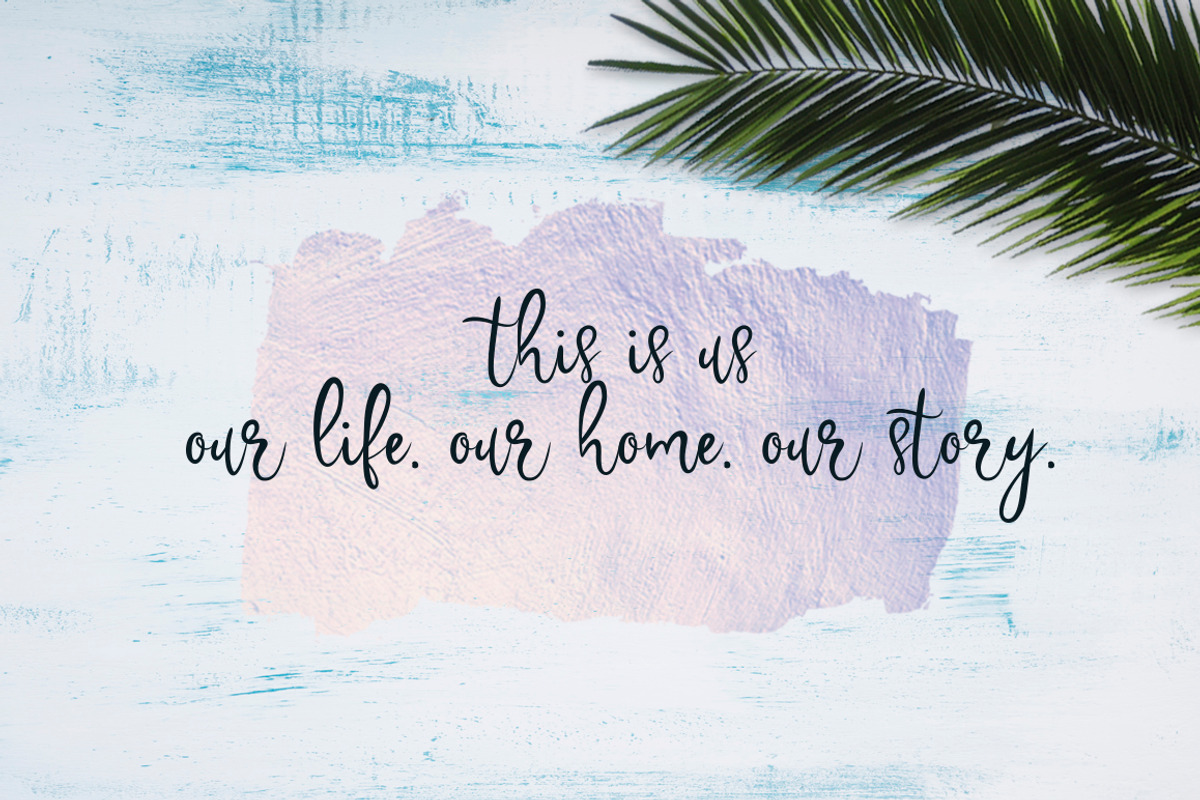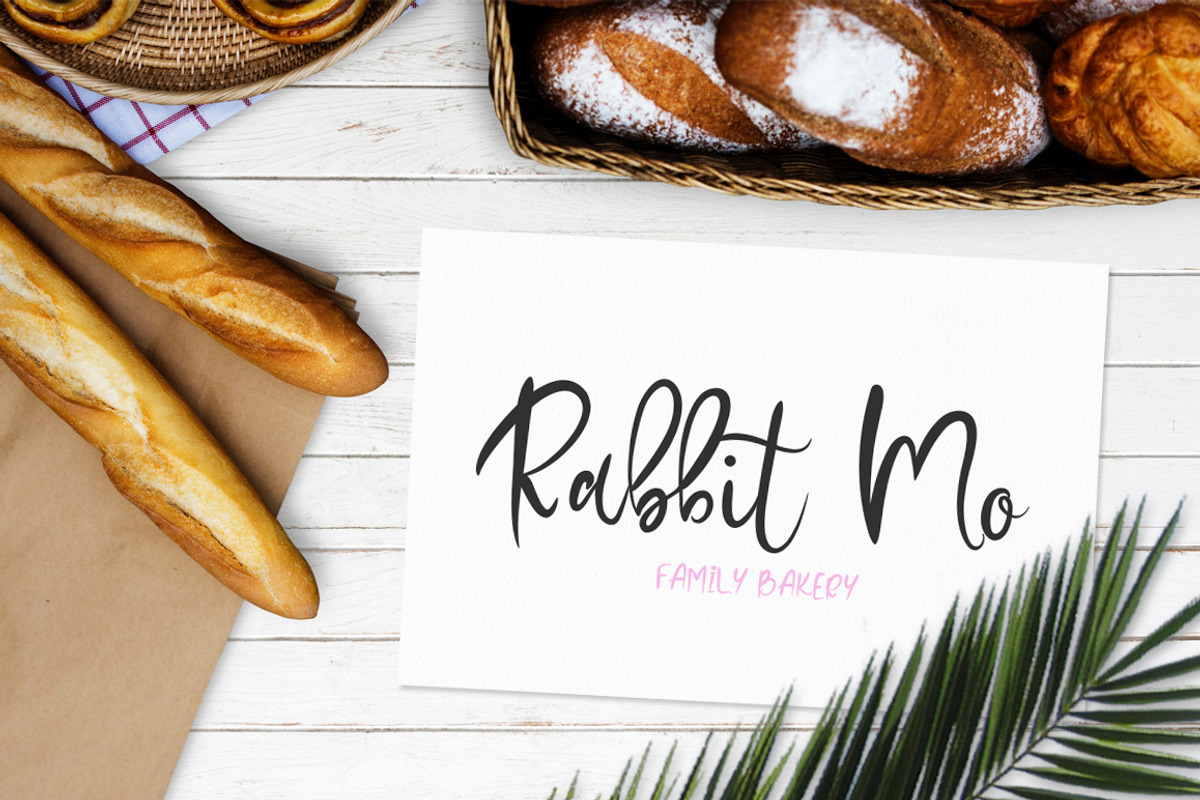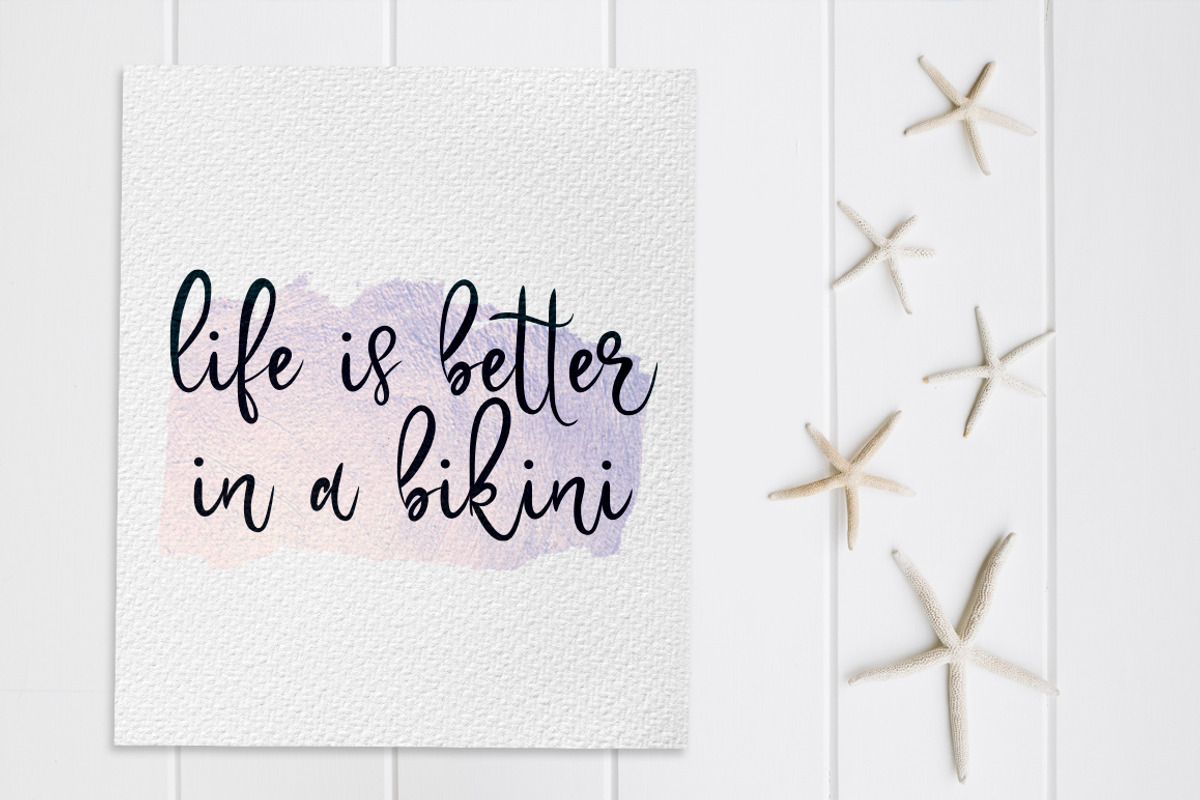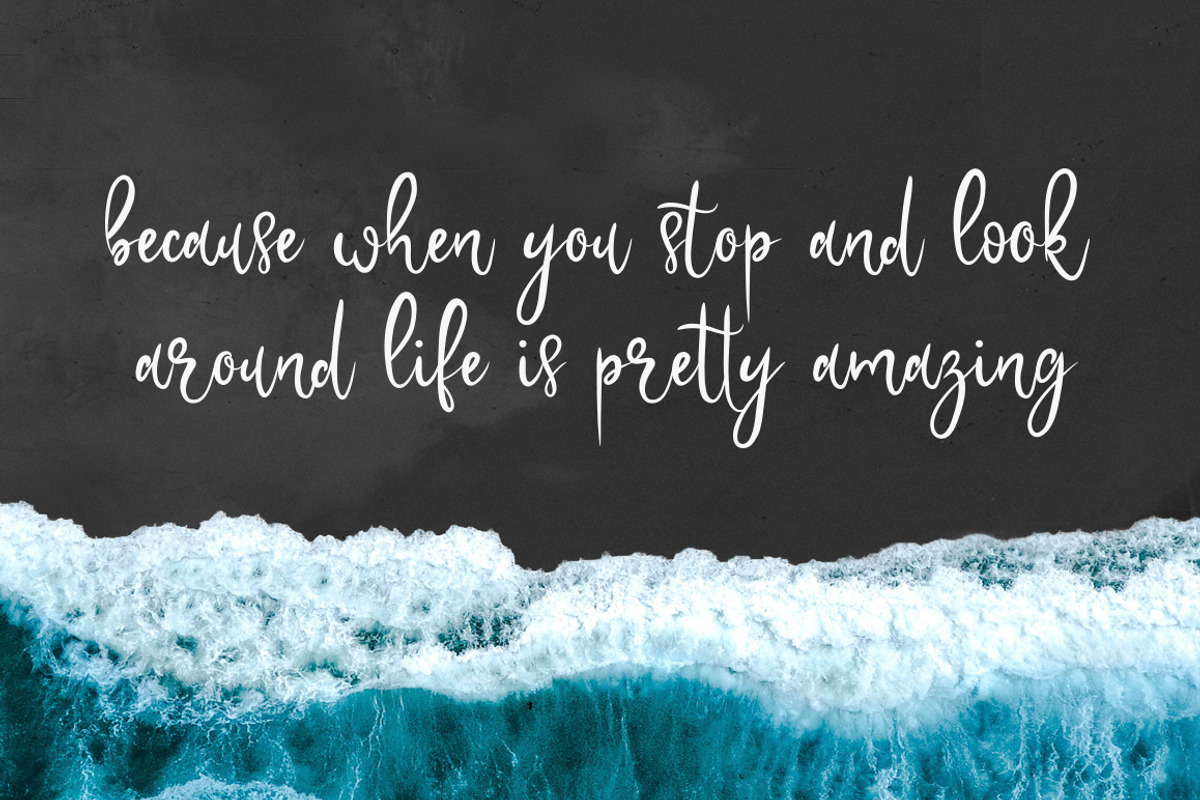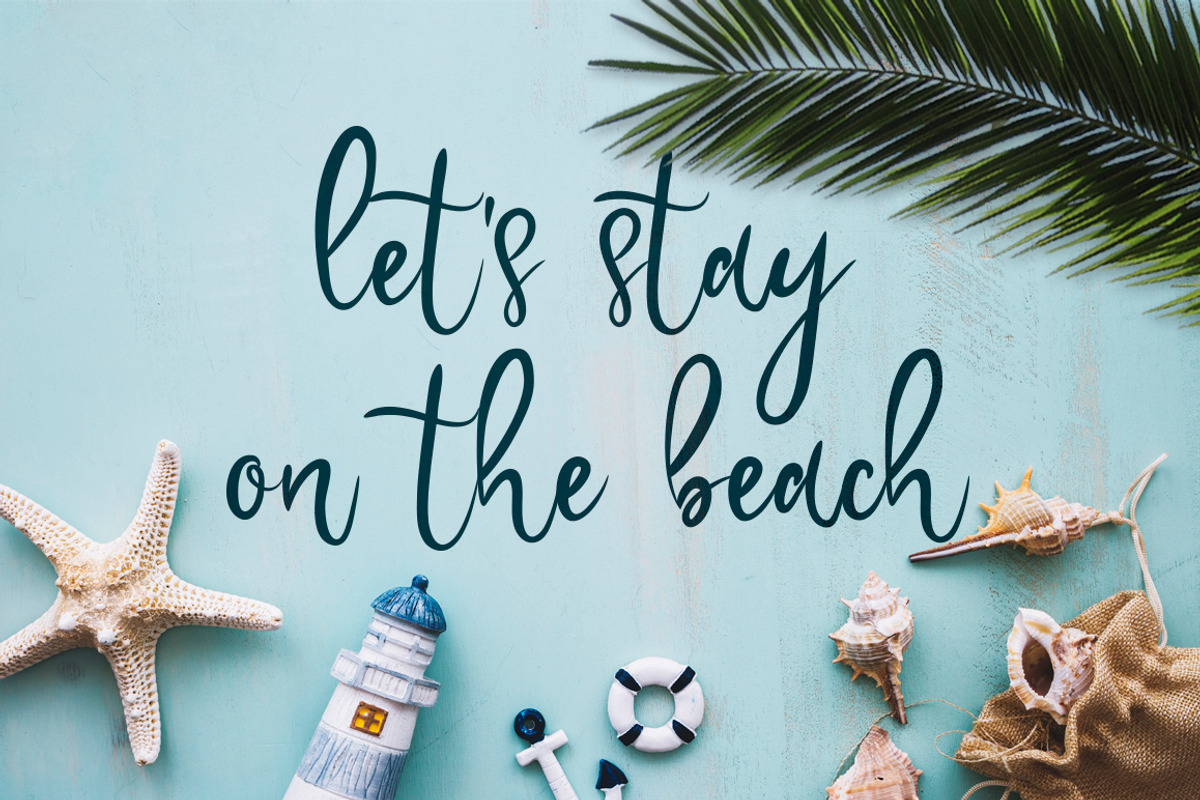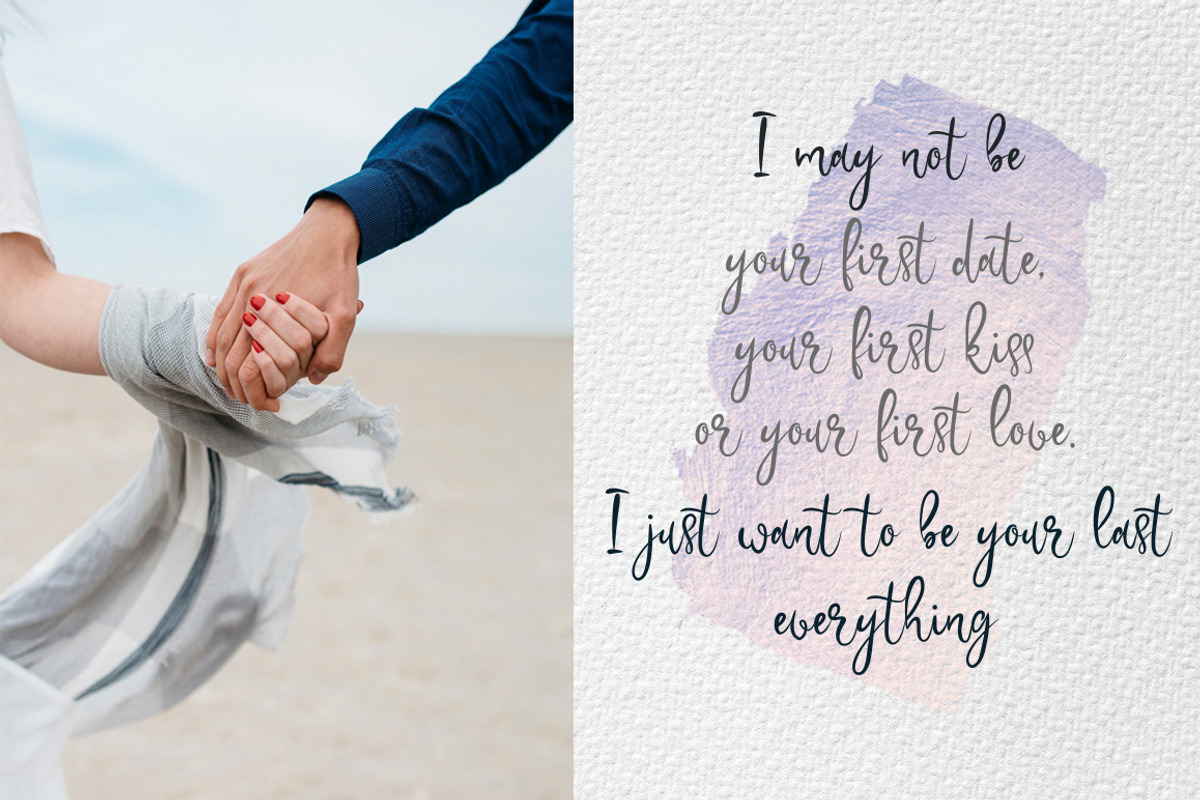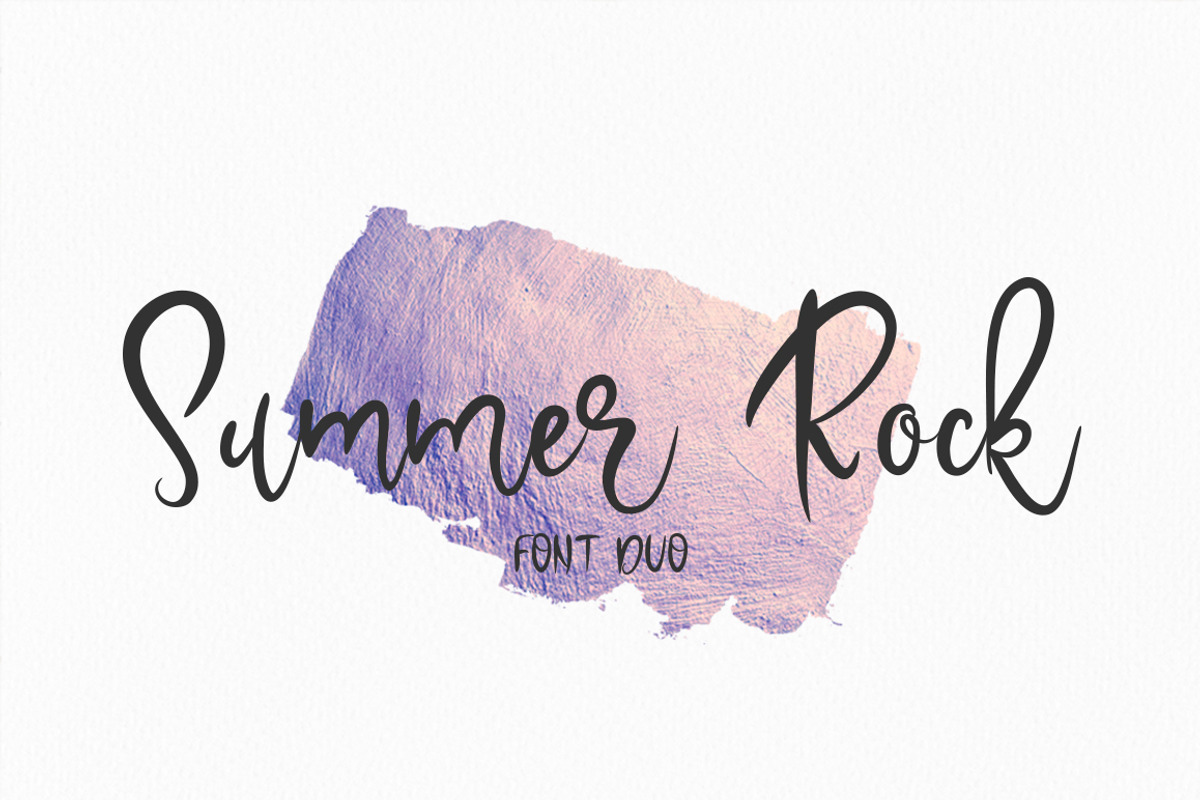
Font Bundle Sale+illustrations,logos
Borgoforte Script Font -
Bellontze.Textured script & swashes -
Summer Rock. Font duo -
Zimbabwe. A handwritten script font -
Million Dreams.Signature script font -
Bohemian Heart. Font duo -
Gypsy Soul.Textured Brush Font+bonus -
Chase The Sun. Font & illustrations -
Rosemary & Lavender.Font duo+logos -